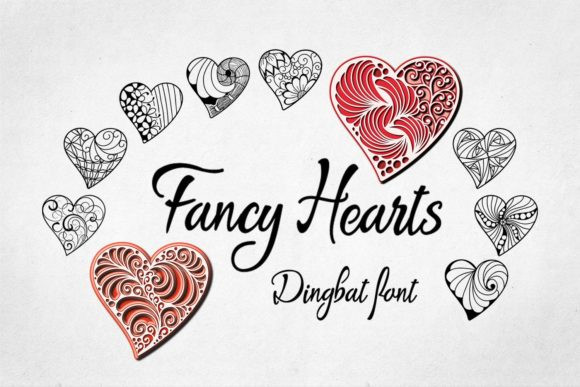
Fancy Hearts Font
Fancy Hearts is a cute dingbats font with beautiful heart elements. This is the perfect font for making original and outstanding designs!